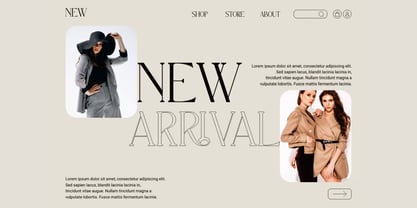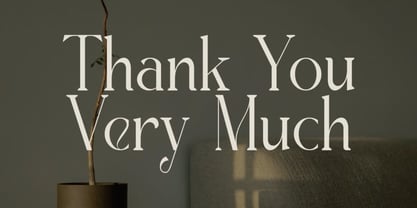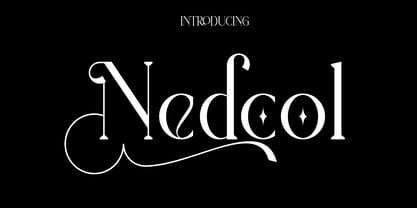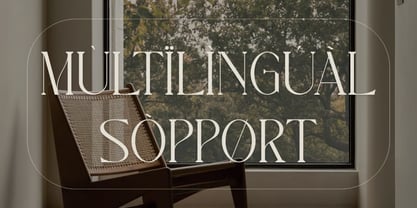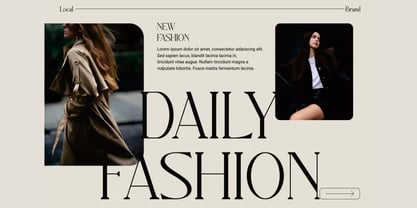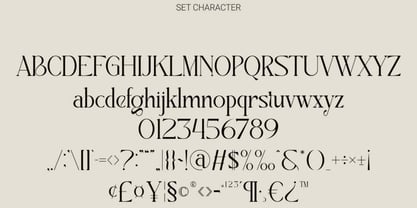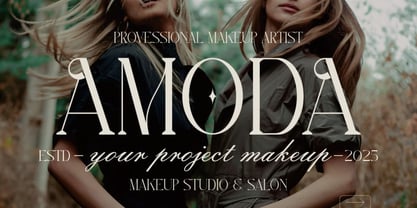
Nedcol
by Hasnat Studio
The Nedcol Font Family was designed by Hasnat Khan and published by Hasnat Studio. Nedcol contains 1 styles.
Introducing Nedcol, a modern serif typeface that seamlessly blends timeless elegance with a refined contemporary aesthetic. Featuring graceful curves, subtle contrasts, and stylish ligatures, Nedcol infuses a sense of luxury and sophistication into any design it enhances. This typeface is perfect for a variety of applications, including branding, logos, fashion editorials, wedding invitations, packaging design, social media posts, and high-end advertising, elevating your creative work with exclusivity, elegance, and artistic finesse. With its versatile alternates and robust multilingual support, Nedcol is ideal for both display and editorial purposes, ensuring your message looks stunning in every format. It provides seamless performance across both print and digital media, making it suitable for bold headlines or refined body text. This typeface delivers premium quality, modern appeal, and timeless readability. ✦ Font Features Uppercase & Lowercase Letters Alternates & Ligatures Numbers & Punctuation Multilingual Support ✦ Perfect For Luxury Branding & Visual Identities Fashion Logos & Editorial Design Wedding Invitations & Stationery Premium Packaging & Product Labels Social Media Templates & Advertising Bring your creative vision to life with Nedcol — a modern serif font crafted for impactful, elegant, and timeless design.